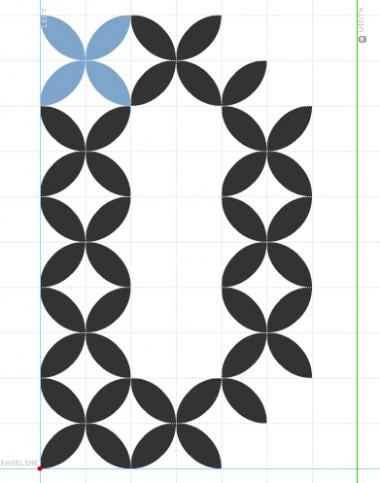
A wonderful slab serif with a pattern. It is nice to see how you've addressed the challenge of the diagonals in M,N. Thorough and consistent design, I'm happy to be first to comment on. 10/10
reminds me of those wooden trellises that people have vines and stuff growing on. neat.
Wow! I just pushed this to max size and saw the intricasies of the design - excellent!
nice font..
it's can save more ink in your printer. Like eco-font :)
Nice! :) 10/10